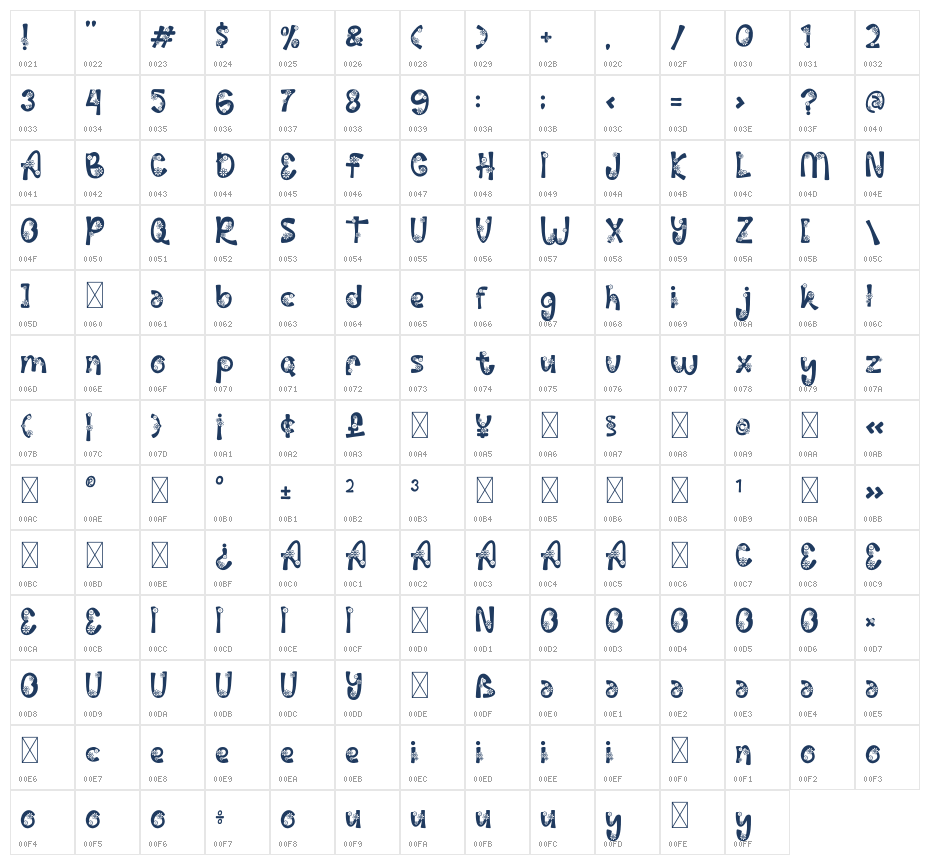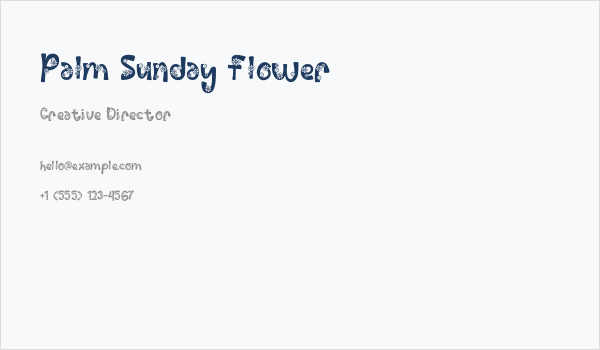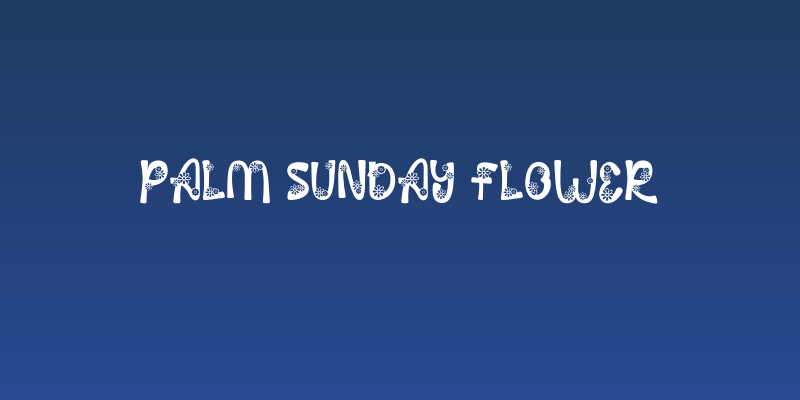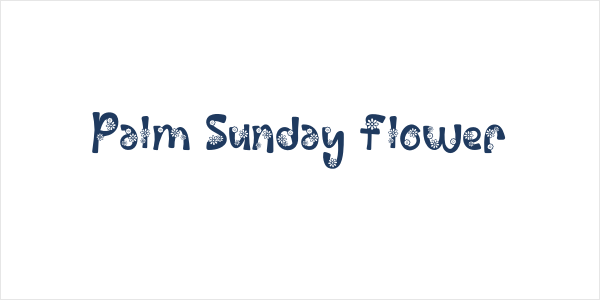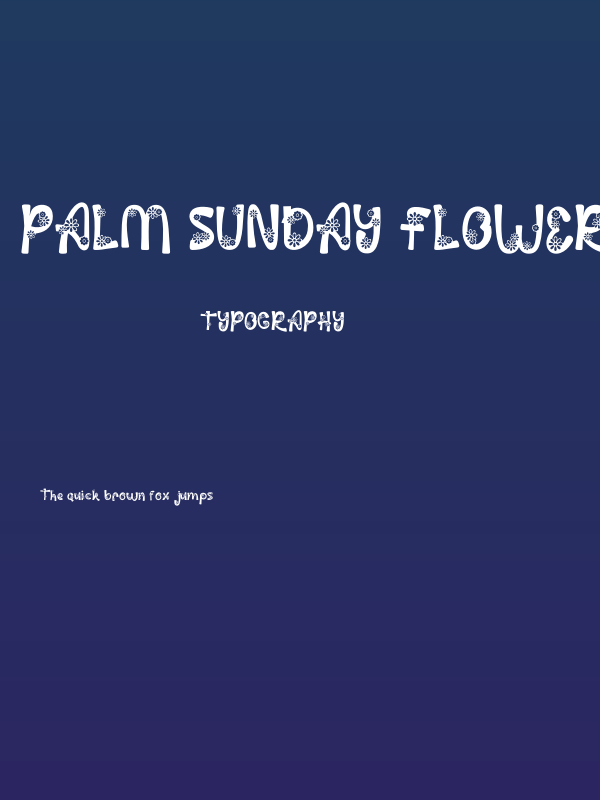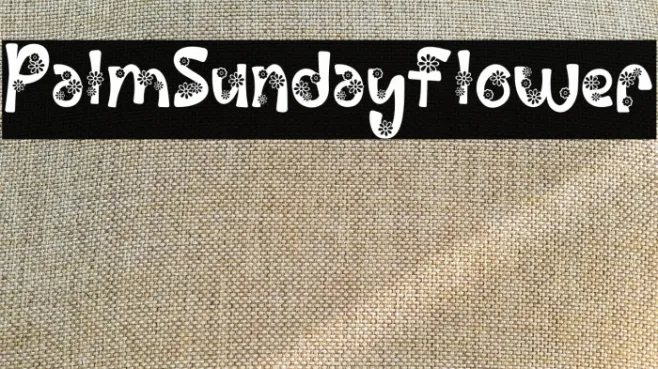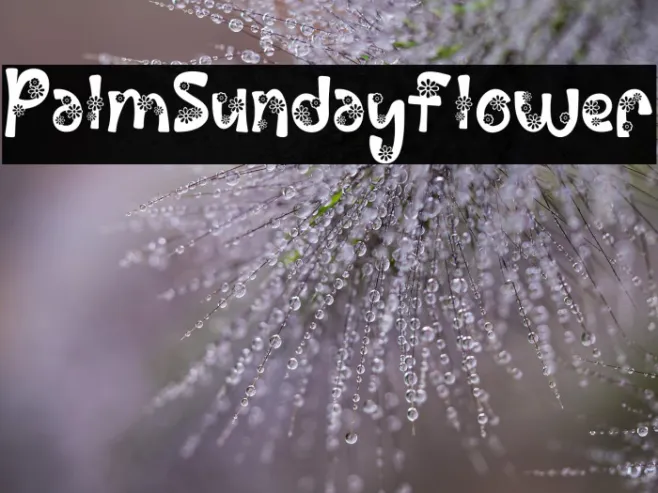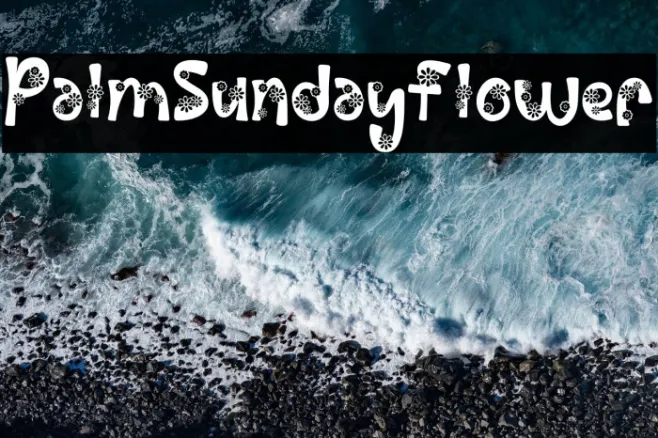
Palm Sunday Flower Font
Palm Sunday Flower Description
A playful, decorative font with a whimsical, floral design integrated into each character, featuring rounded, bubbly shapes.
| Overall Style | Playful, Whimsical, Floral |
| Use Case | Headlines, Titles, Decorative text |